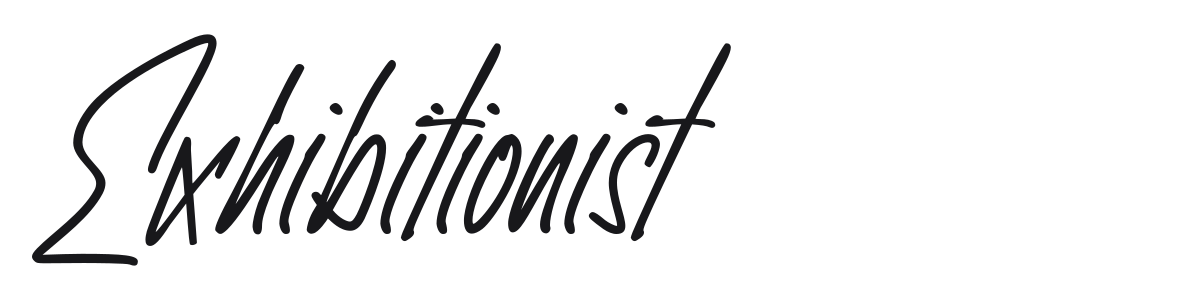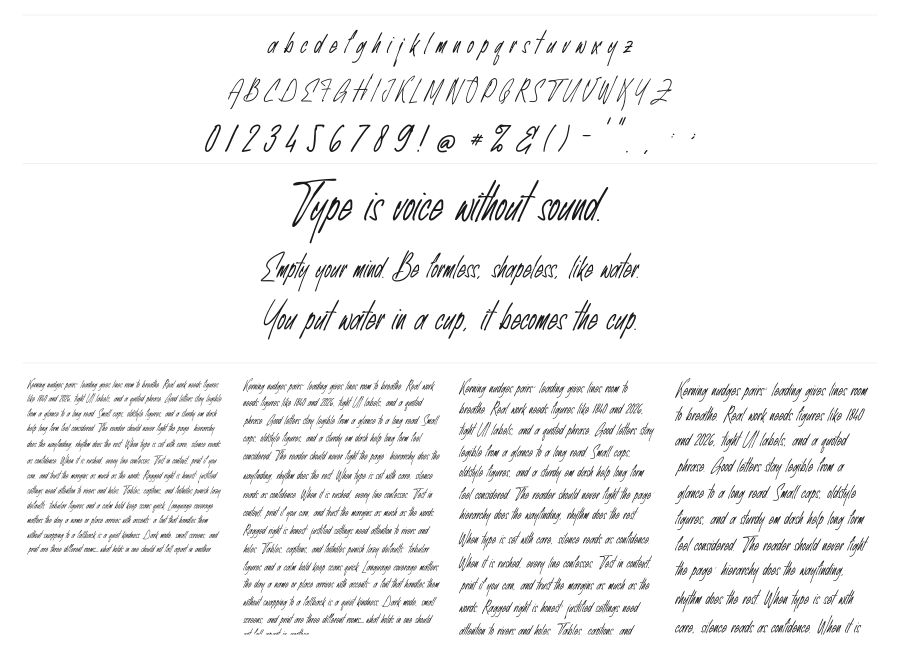
Exhibitionist
Exhibitionist is a casual handwritten script with a fast, forward-leaning slant and thin connected strokes that feel like genuine pen on paper. The irregular ink quality and loose construction give it an unguarded, spontaneous energy. Strong at display sizes where its personality and rhythm are most legible.